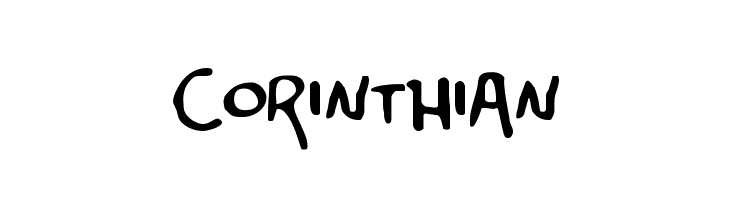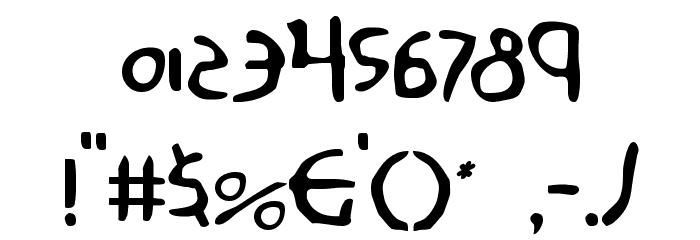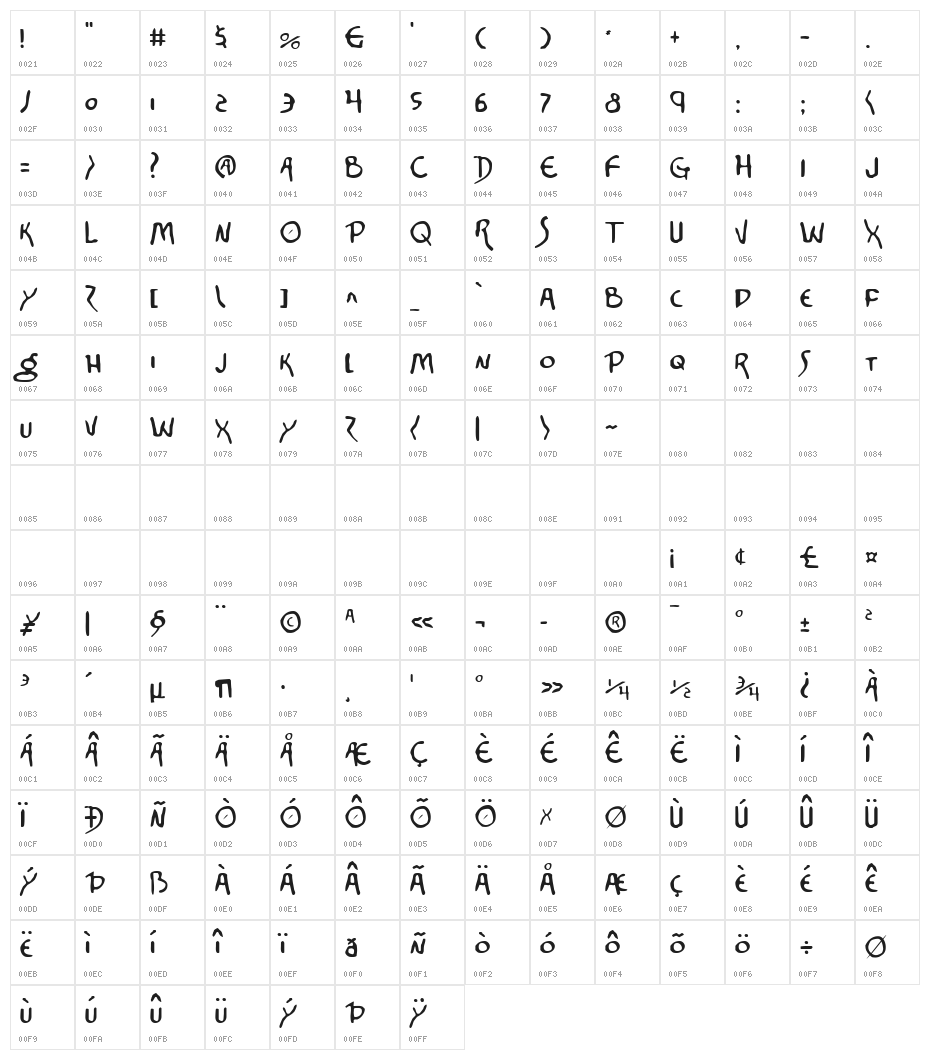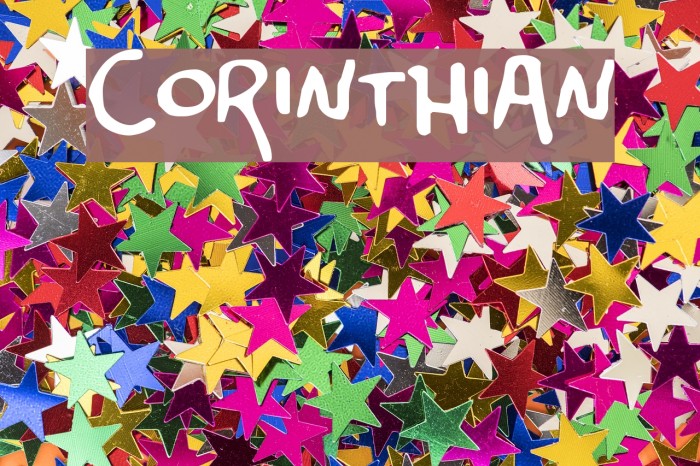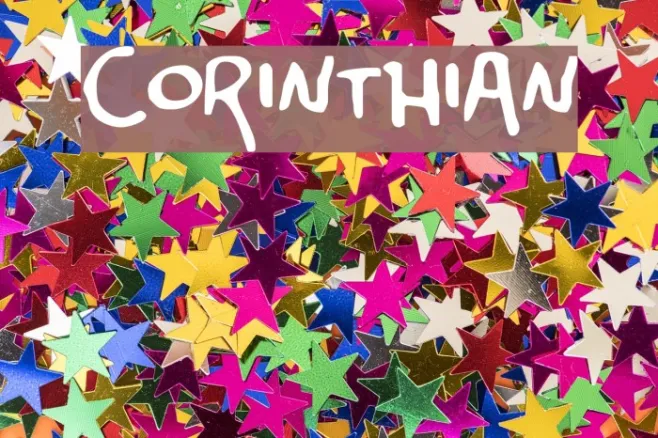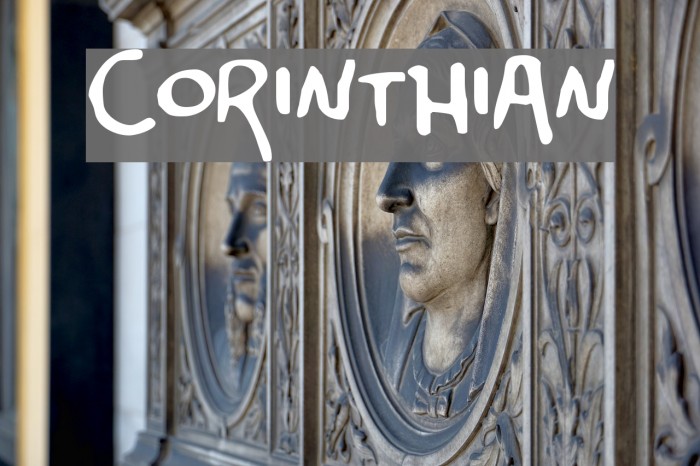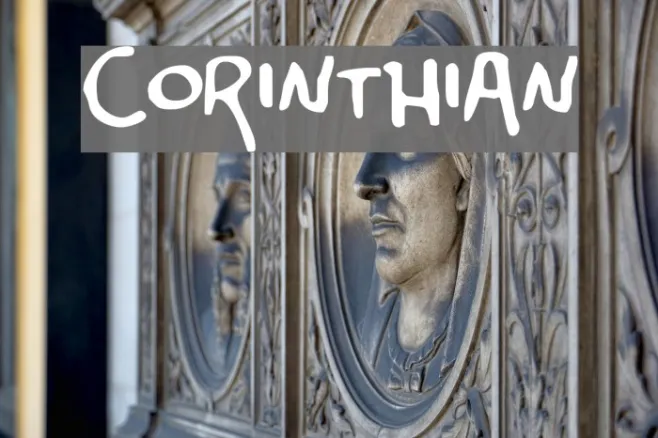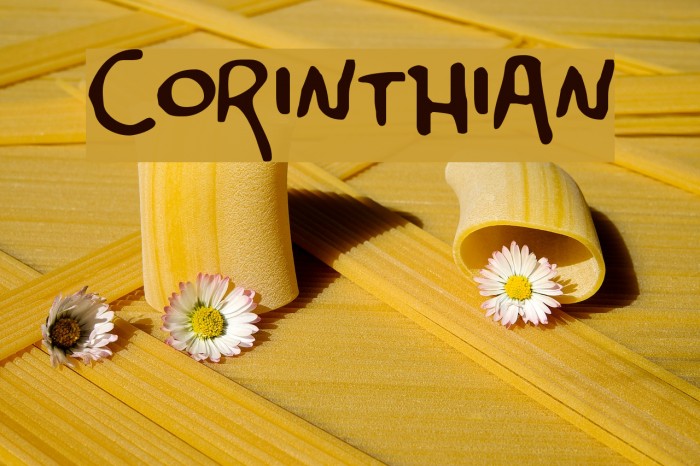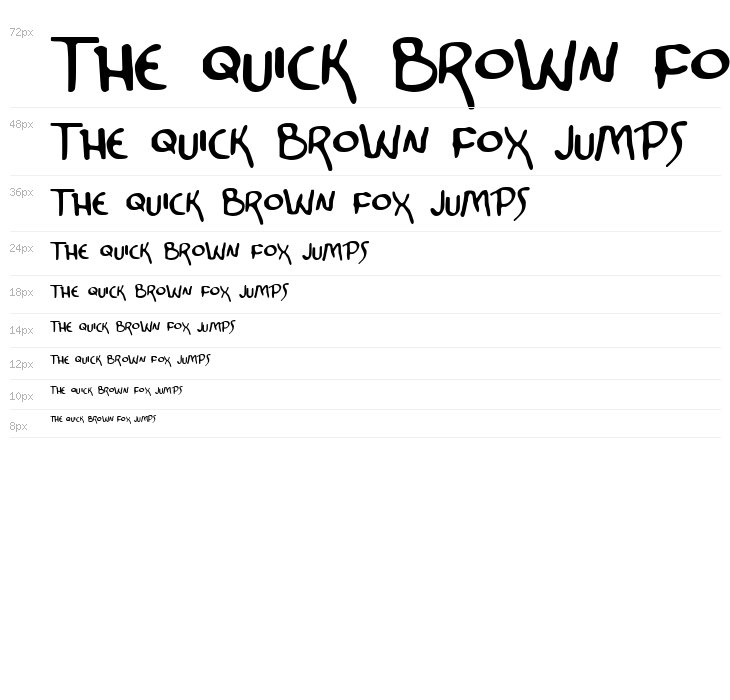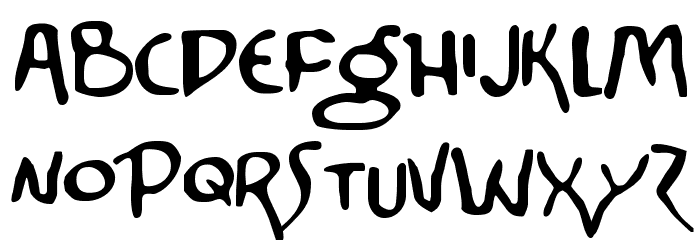
Corinthian Font
Corinthian Description
This font features a unique and artistic style, characterized by its flowing, calligraphic strokes and organic shapes. The uppercase letters exhibit a bold and dynamic presence, with some letters incorporating distinctive curves and angles that give them a lively appearance. The lowercase letters maintain a consistent style, complementing the uppercase with their own fluid forms. Numbers are crafted with the same artistic flair, ensuring a cohesive look throughout. Special characters are thoughtfully designed, adding to the font's versatility. Overall, this font exudes a handcrafted, expressive quality that makes it stand out.